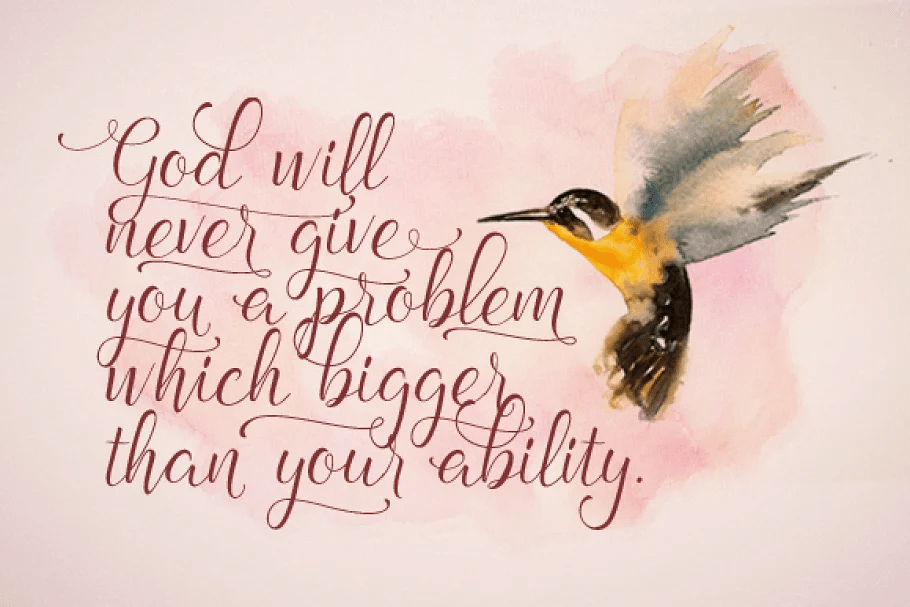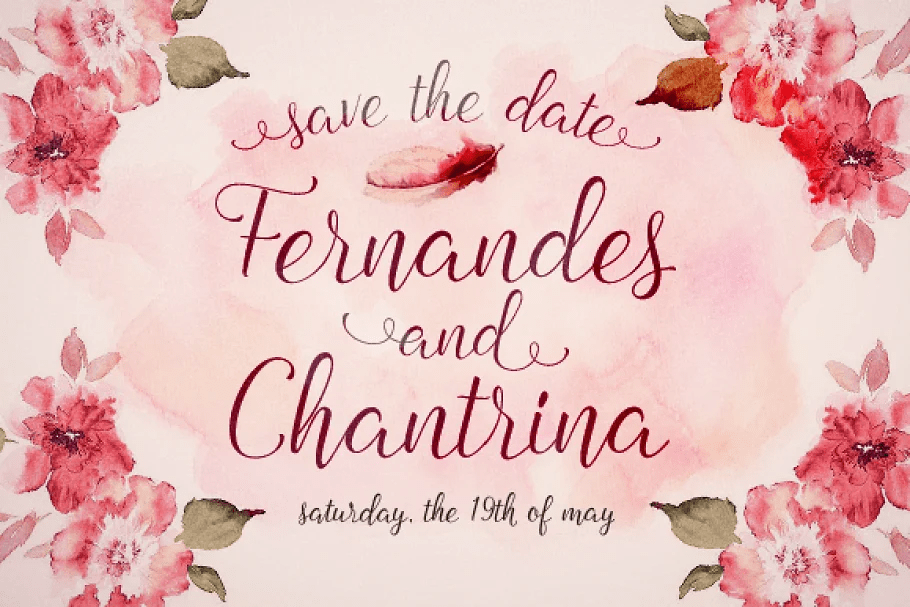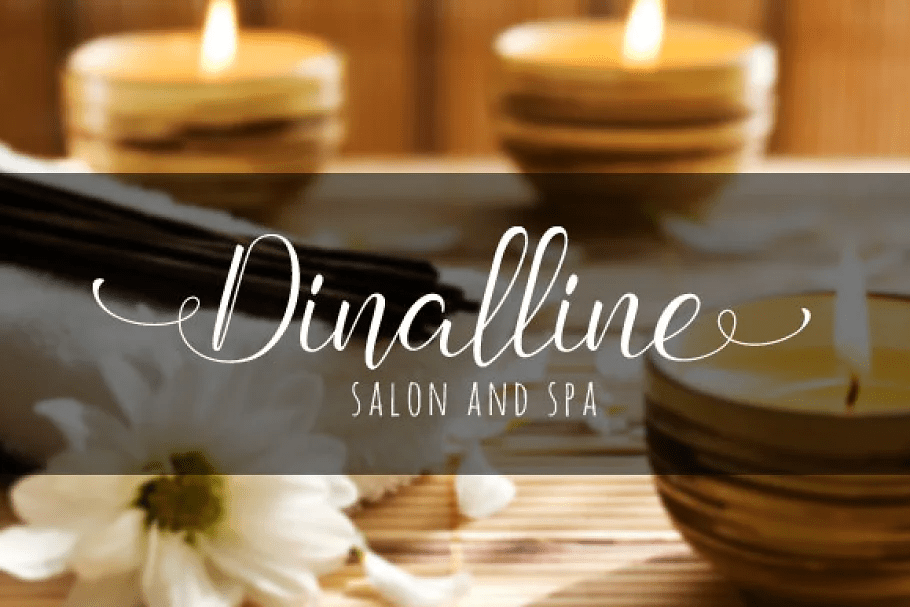
Angelline
Font Family by Graptail
Buy NowAngelline Script is a stylish handwritten font based on copperplate calligraphy combined with a contemporary dancing baseline, for a classic and elegant touch. Designed with a real brush and digitized, it has 348 glyphs. Supports contextual, ligatures, swash and alternates in any OpenType savvy program or manually choose even more alternate characters from the Glyph Palette.